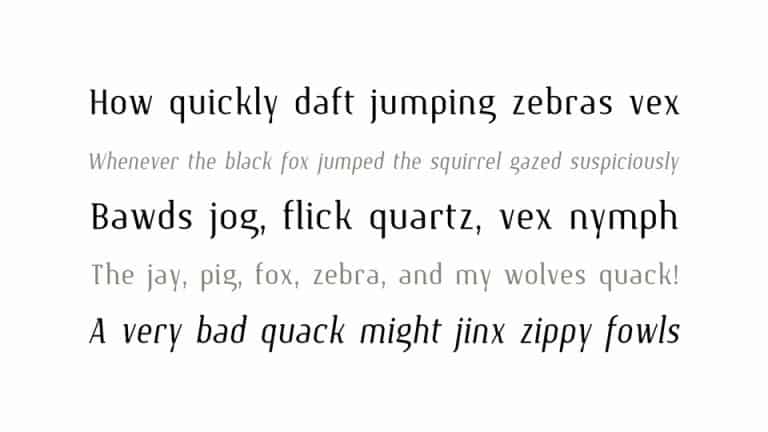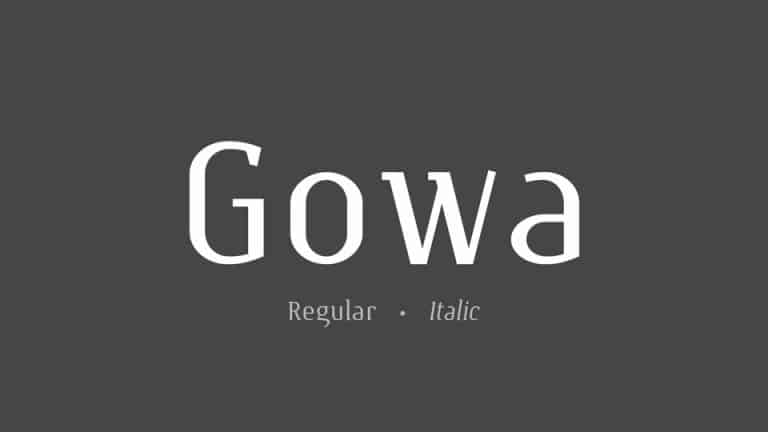
Gowa Serif Font is an elegant font with quirky curved serif. It is perfect for branding, headline, and anything that needs some simple elegance. Made from font designer named T. Christopher White. a serif typeface designed with Science Fiction genre in mind. It comes in Regular and Italic styles, supports Latin, Greek and Cyrillic languages.